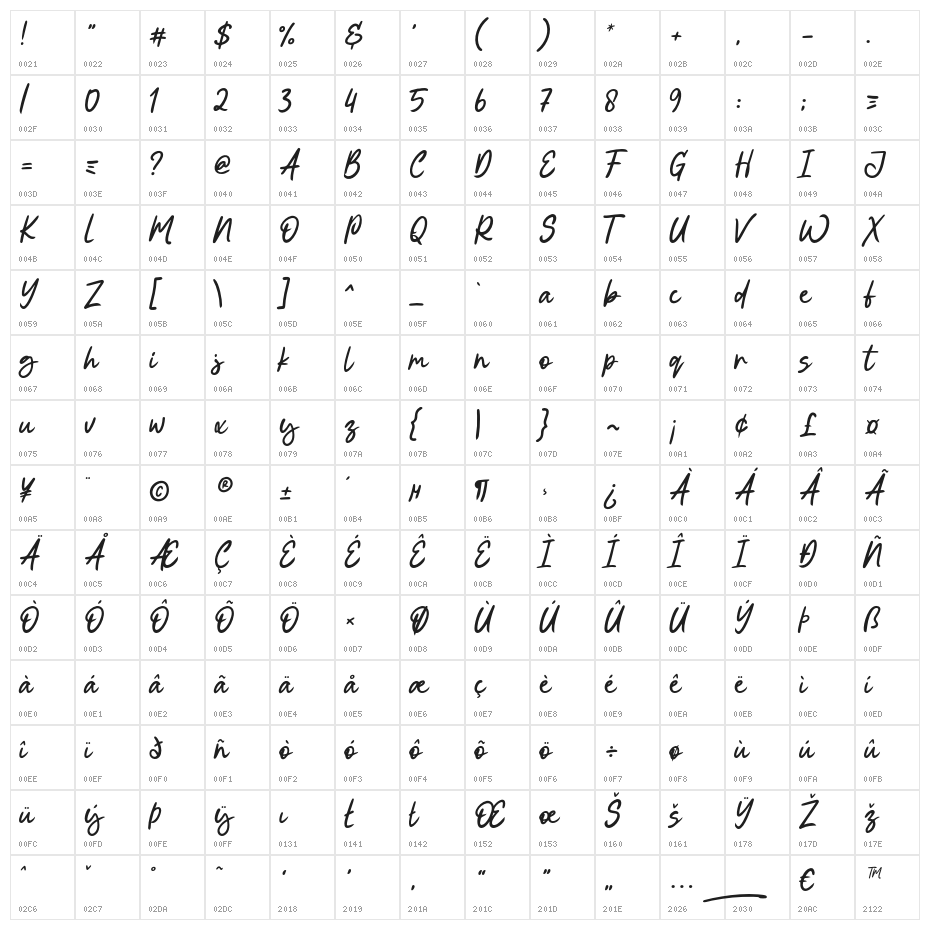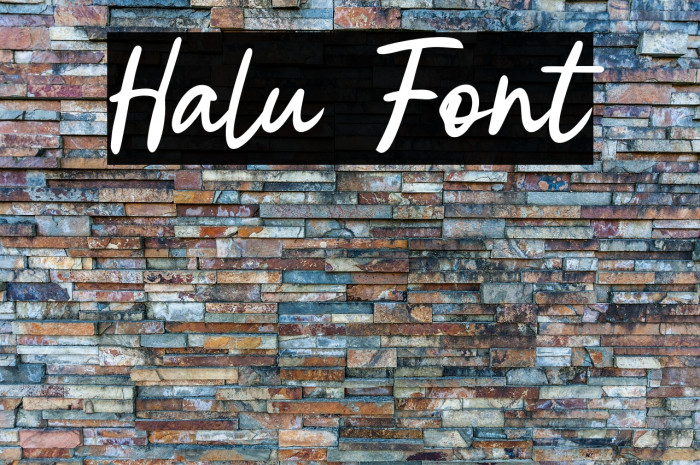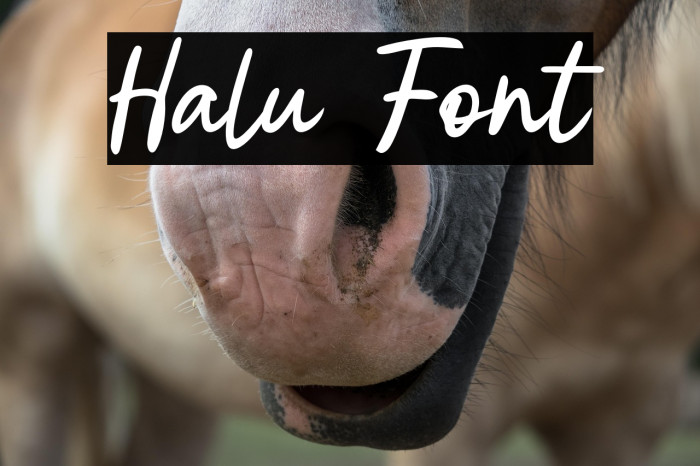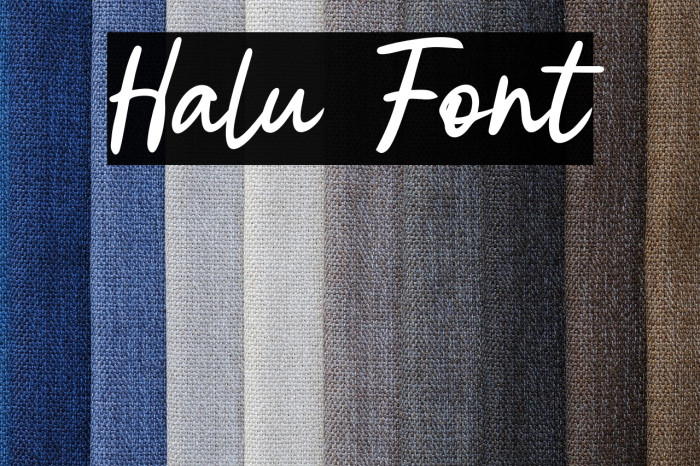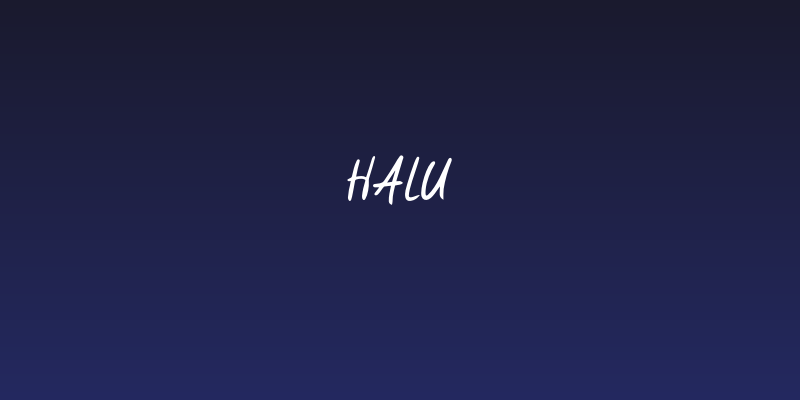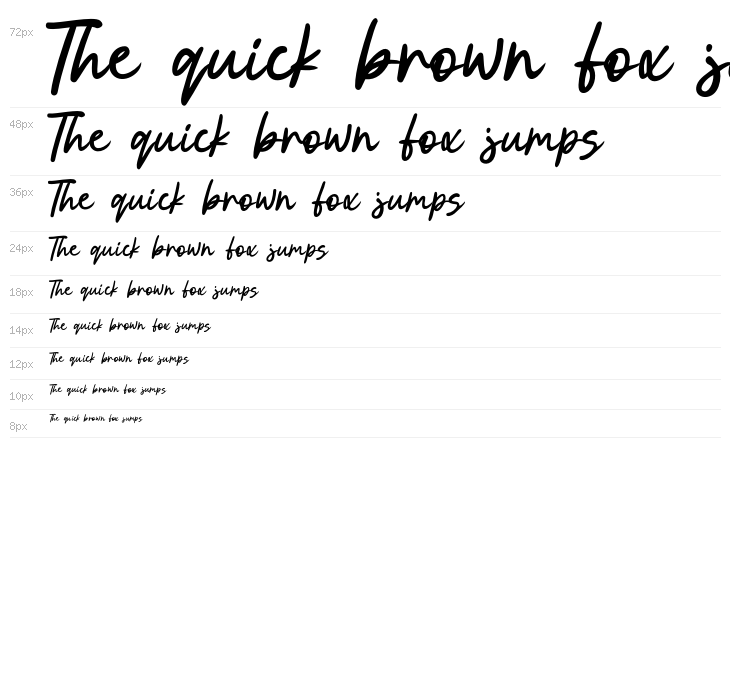
Halu Font
Halu Description
This font exudes a casual and energetic vibe, characterized by its handwritten style that mimics natural penmanship. The letters are fluid and slightly slanted, giving an informal yet stylish appearance. The uppercase and lowercase letters maintain a consistent flow, with rounded edges and smooth curves. Numbers and special characters follow the same dynamic style, ensuring a cohesive look across all text elements. The font's playful nature makes it suitable for creative projects, adding a personal touch to any design.
| Overall Style | Casual |
| Use Case | Logos, Headlines, Informal text |
| Proposed Projects | Ideal for greeting cards, personal branding, social media graphics, and informal invitations. |